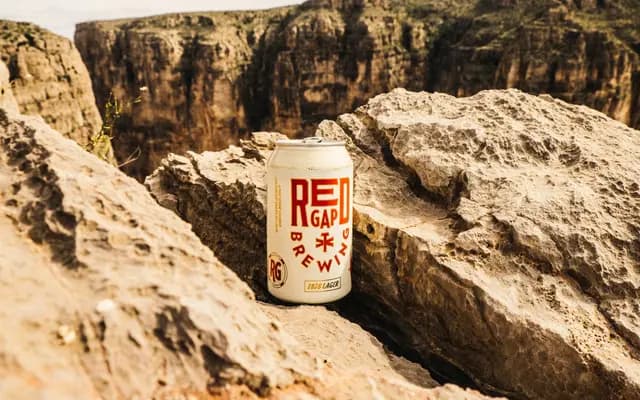
Bourbon
Fort Foundry · Mattox Shuler
A condensed display serif drawn from old whiskey bottle lettering, offered in clean, rough and inline variants.
Designed by Mattox Shuler, Bourbon takes its cues from the hand-lettered typography found on American whiskey packaging, with tall condensed letterforms that suit headlines, labels and signage. Six styles cover a clean regular and oblique, a distressed rough pair and a lines variant with inline detailing. The rough styles are intended for large sizes with smooth anti-aliasing, and the foundry recommends pairing with script or distressed textures.
Described as a condensed display serif inspired by old whiskey bottle lettering, with rough and inline variants that make it unsuitable for body text use. Its heritage-americana character and distressed styles place it firmly in the display category.